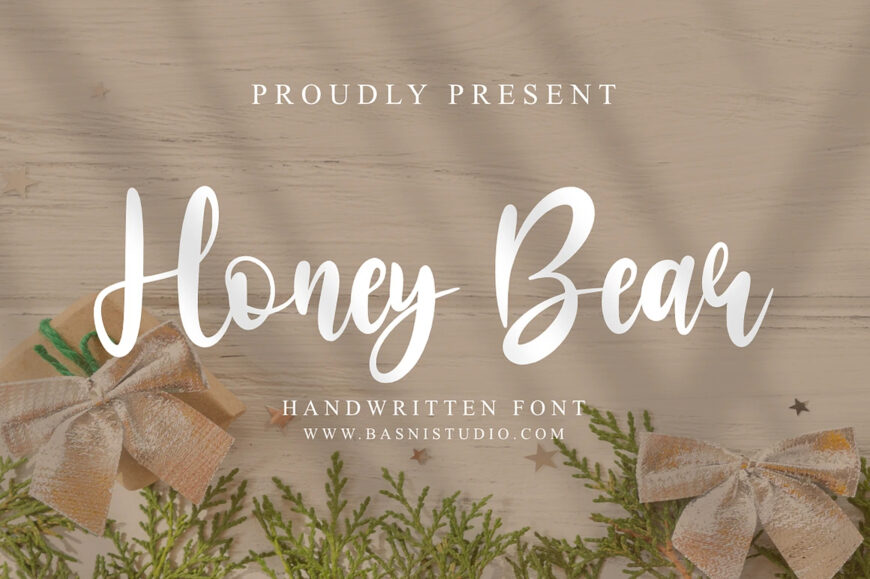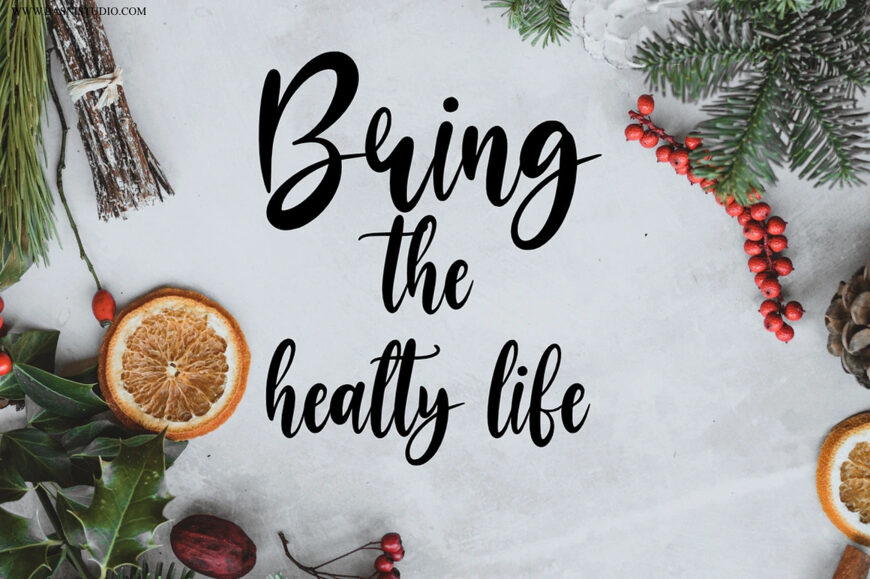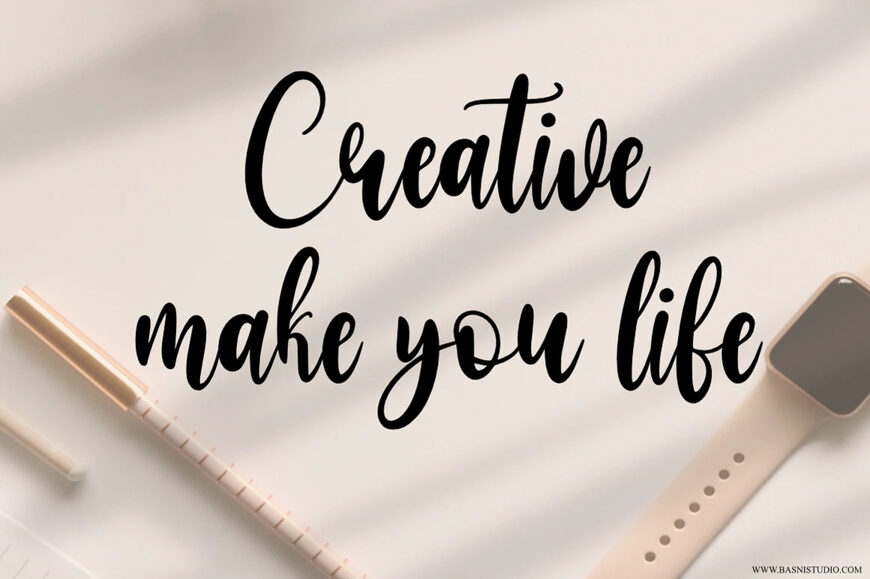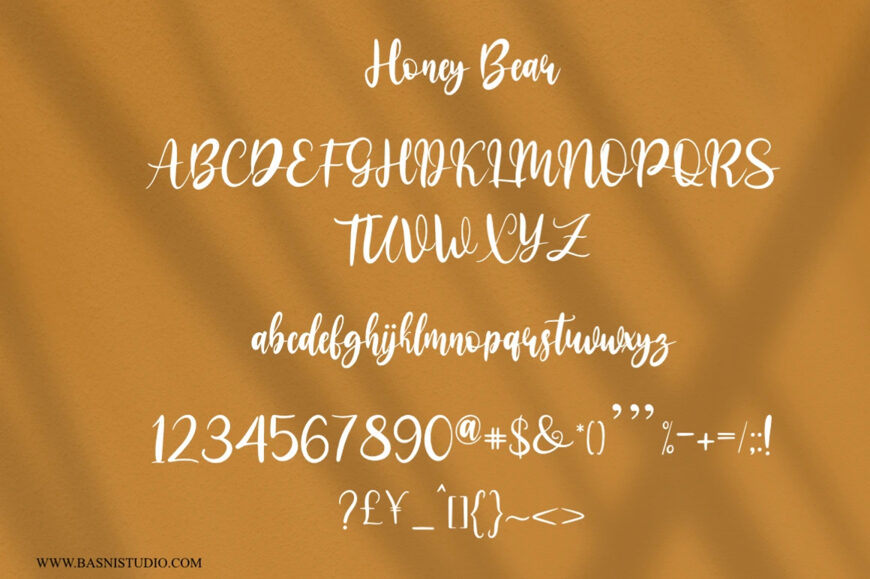
Meet Honey Bear, a beautiful handwritten font crafted by Basnistudio. Its modern, natural look is perfect for branding, wedding, websites, and editorial designs. With meticulous detail, this font includes a full character set, multilingual support, and elegant swash elements, all easily accessible via OpenType-compatible software.